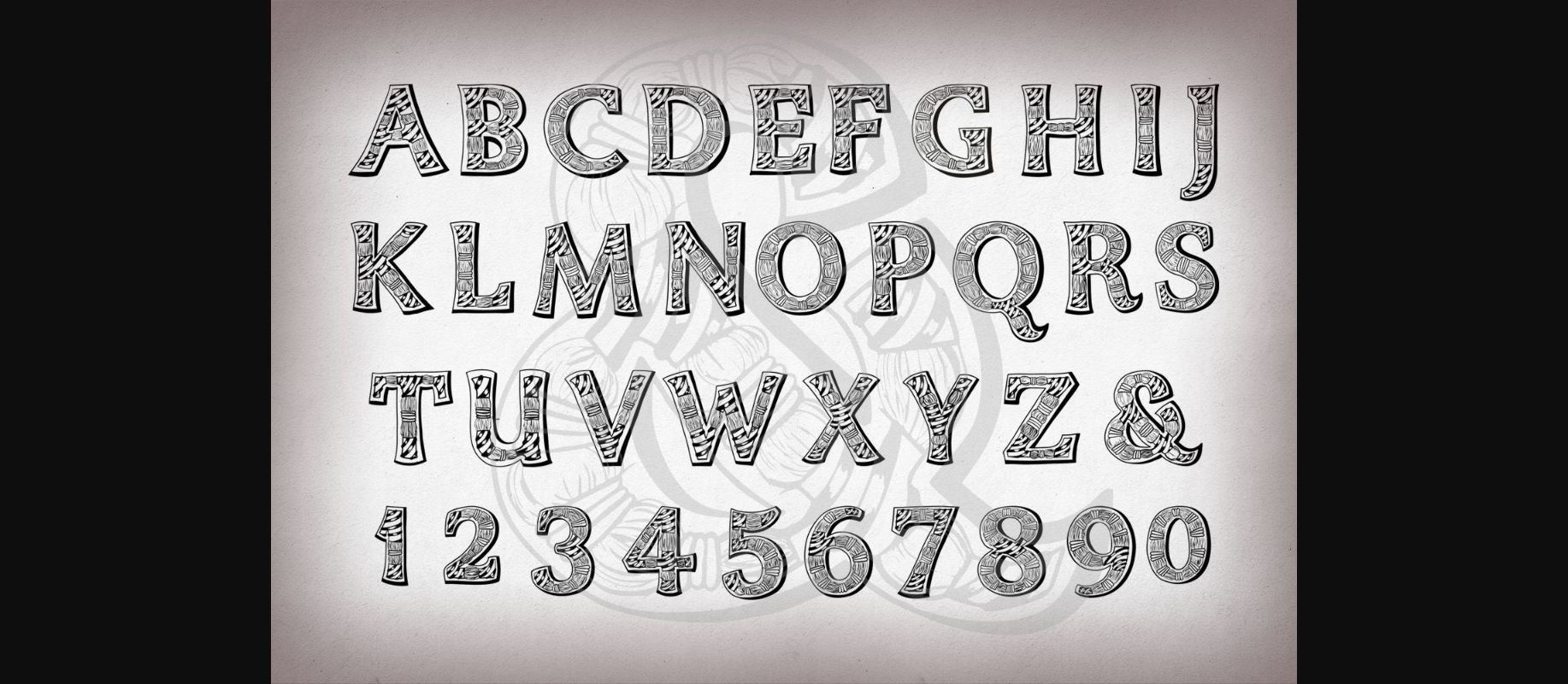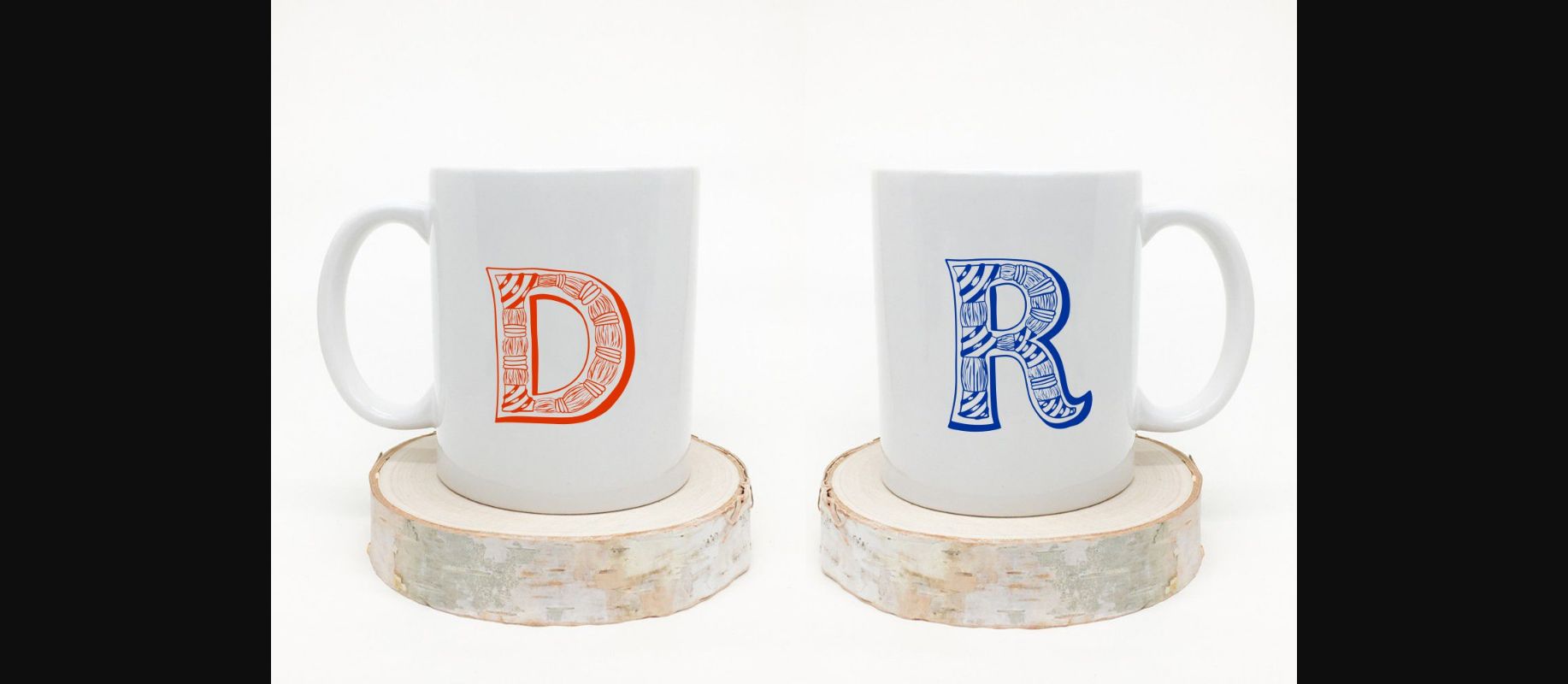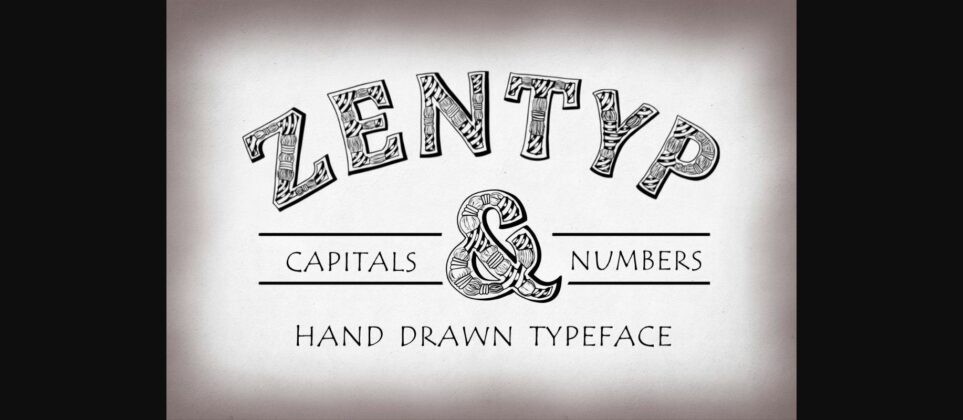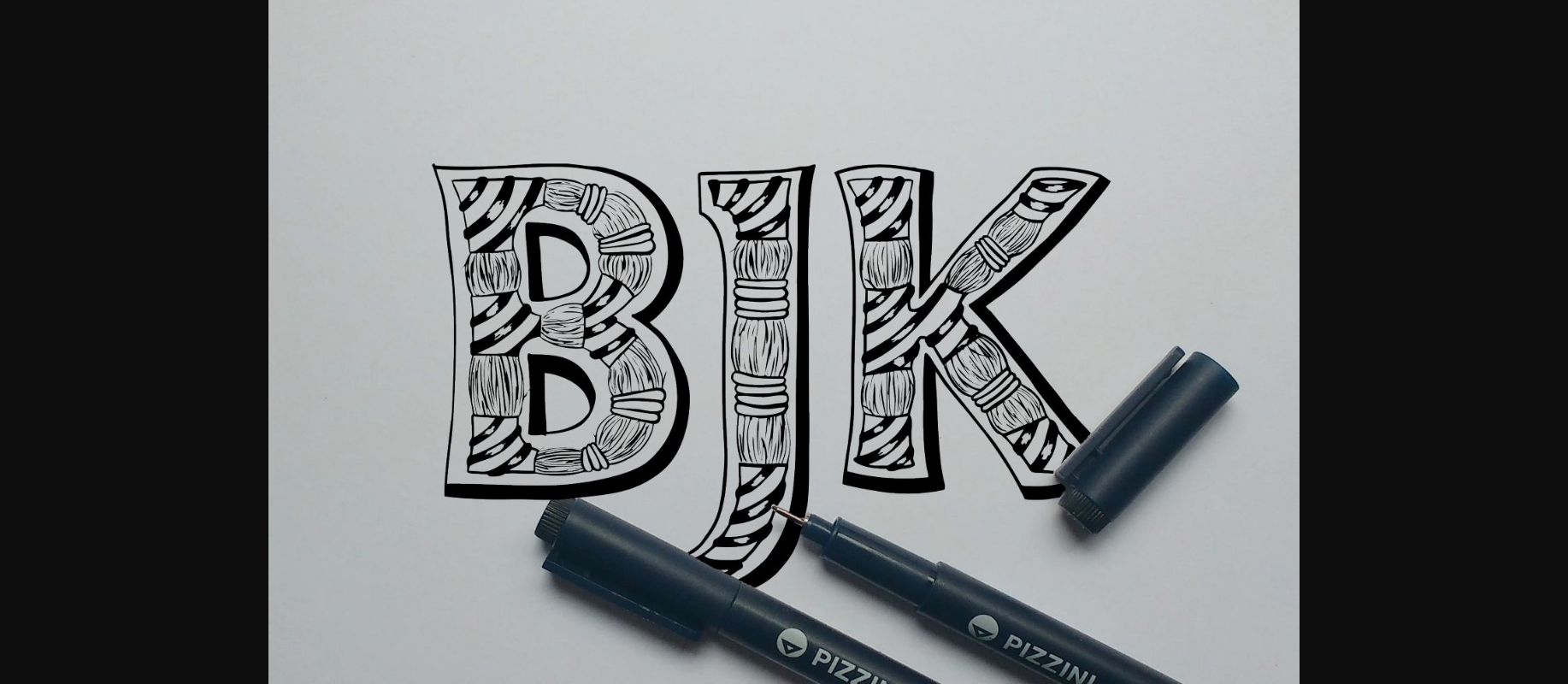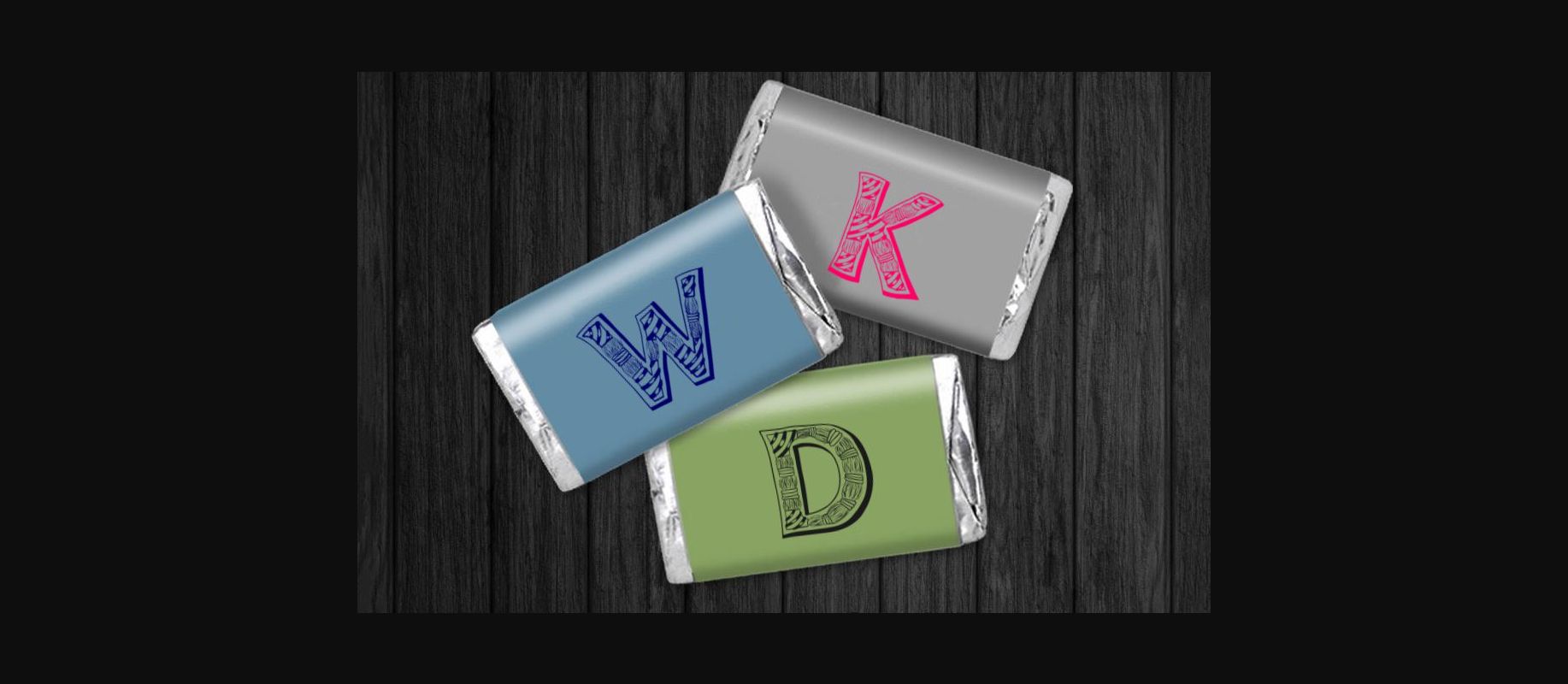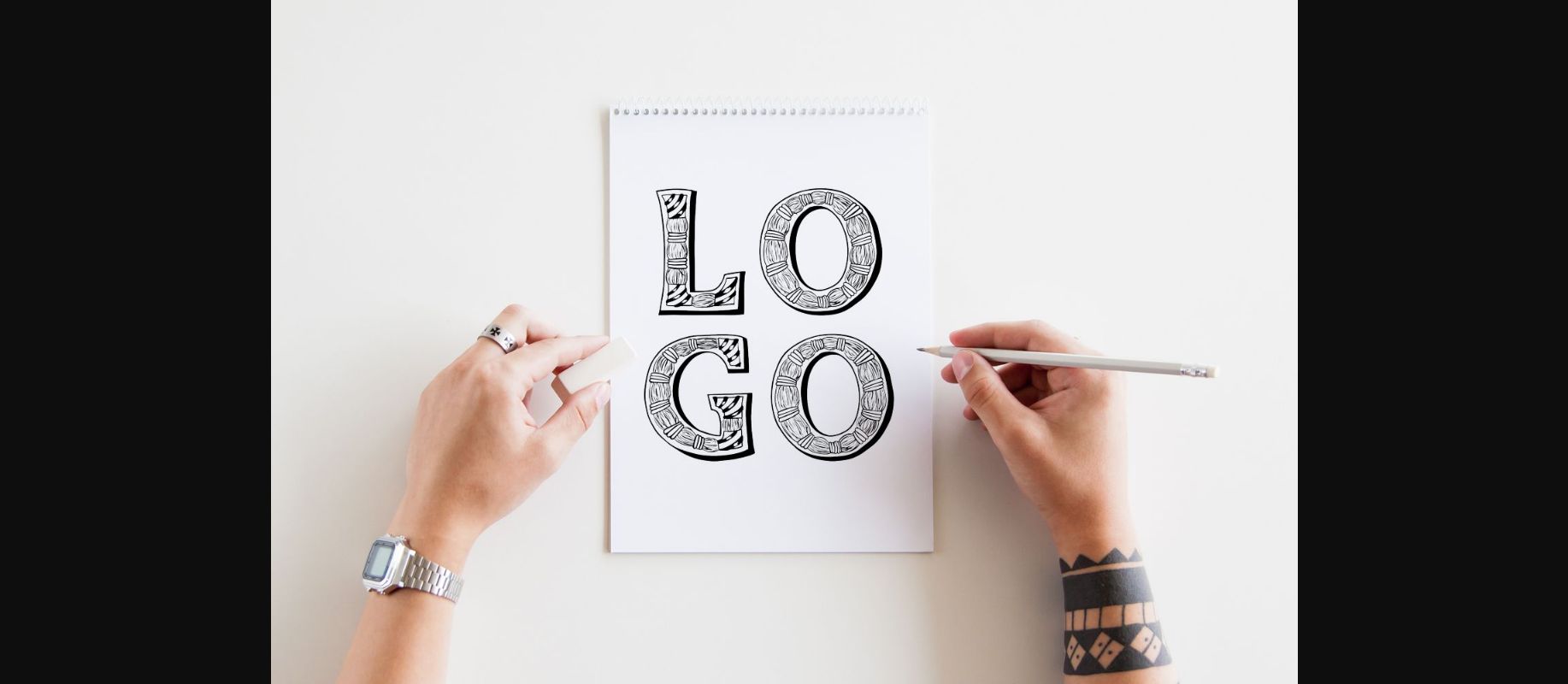
About Zentyp Font
The Zentyp is a hand crafted uppercase font. The characters are filled with amazing decorative elements and will bring an unique look to your designs!